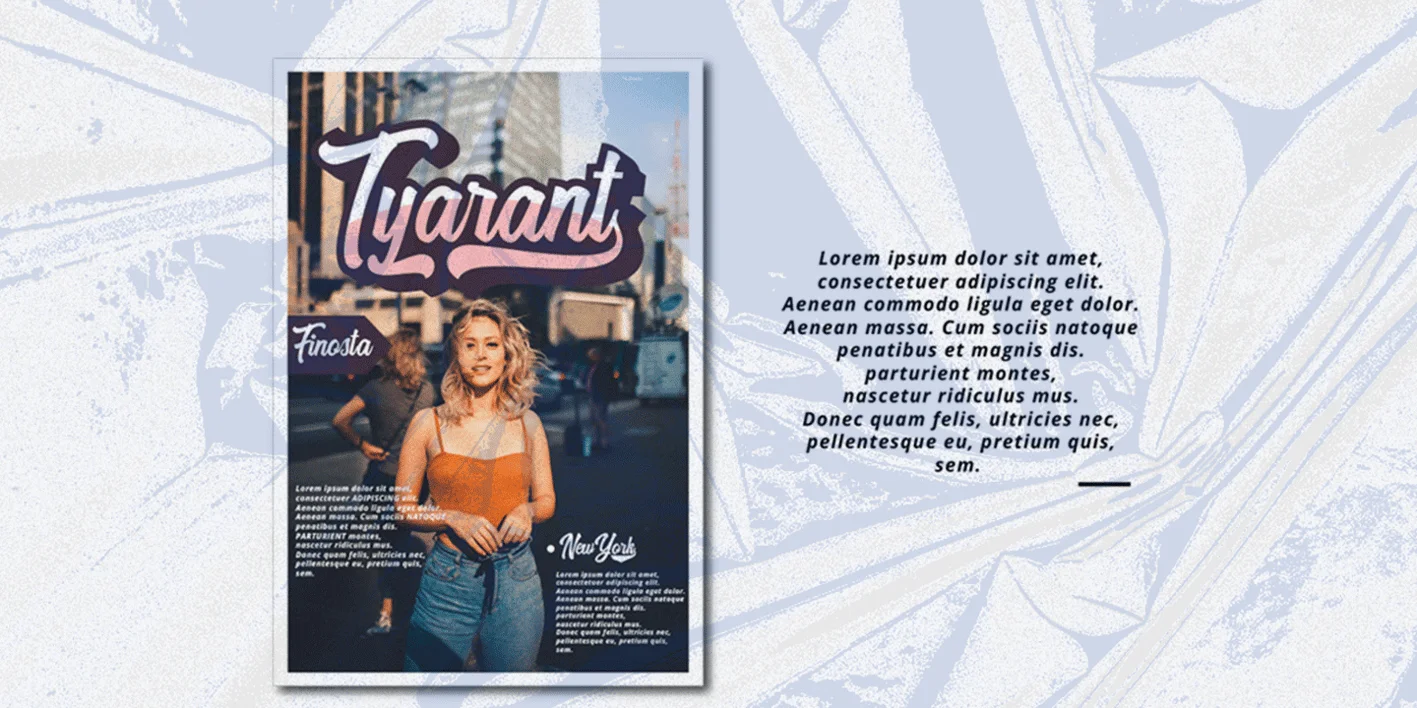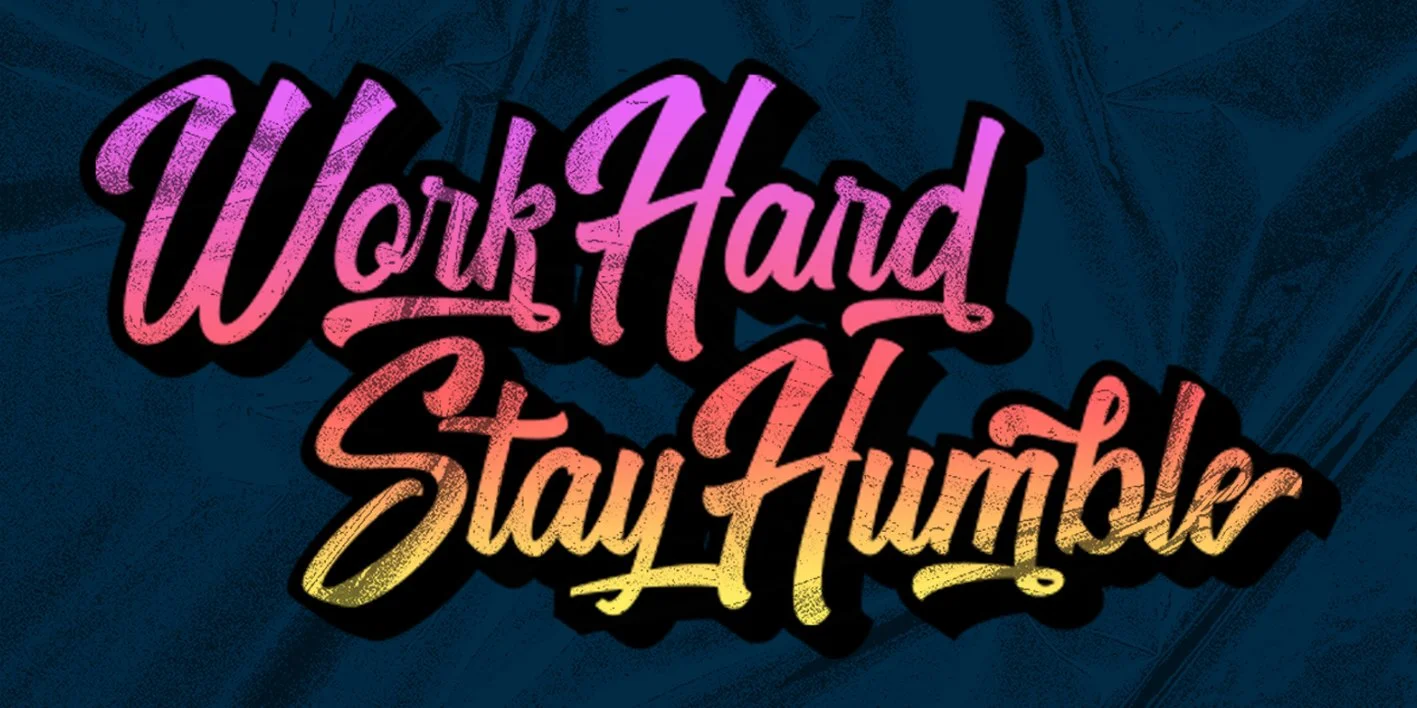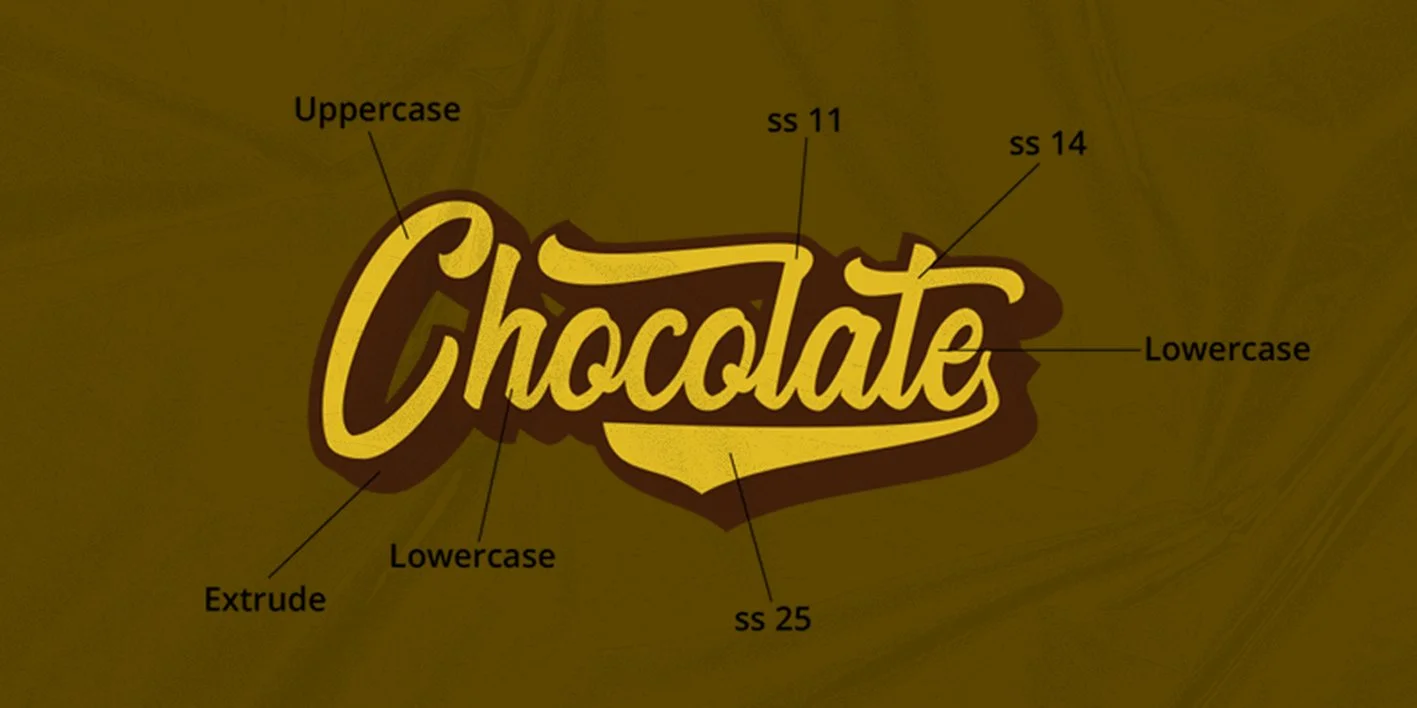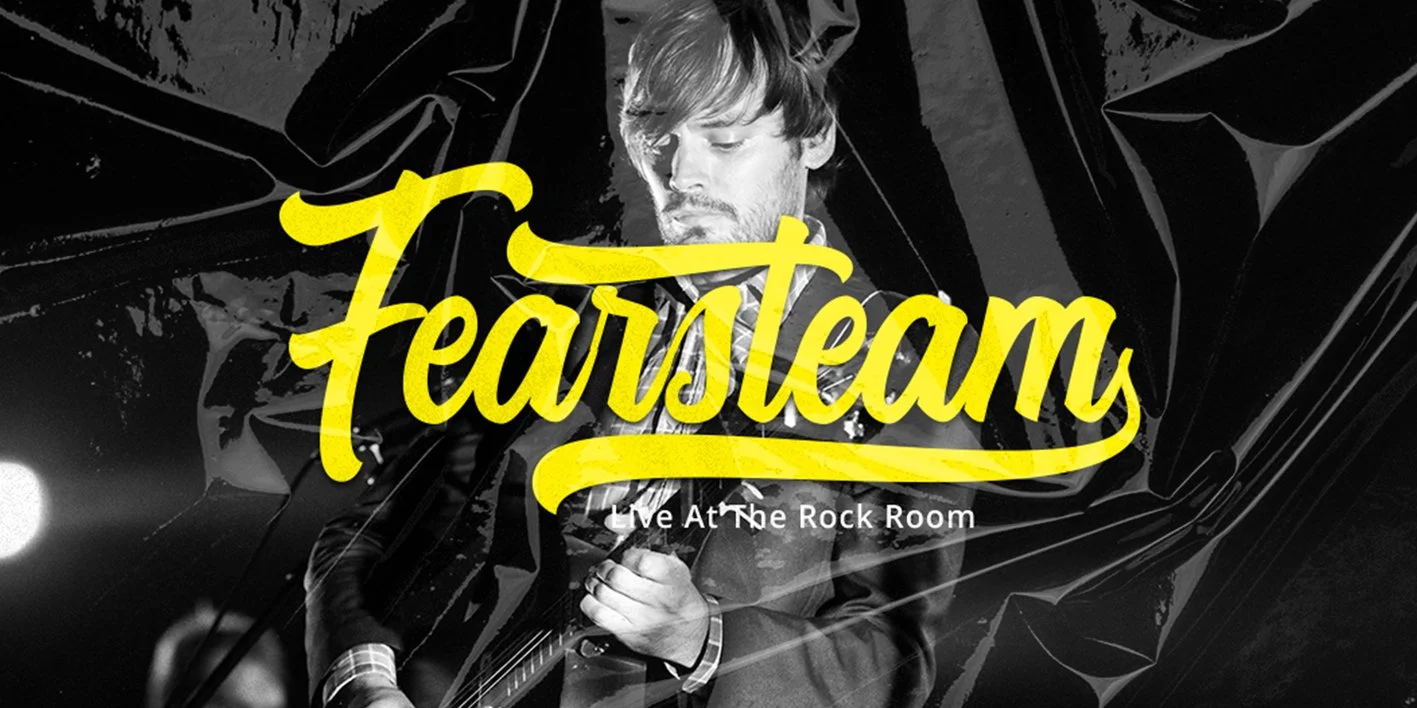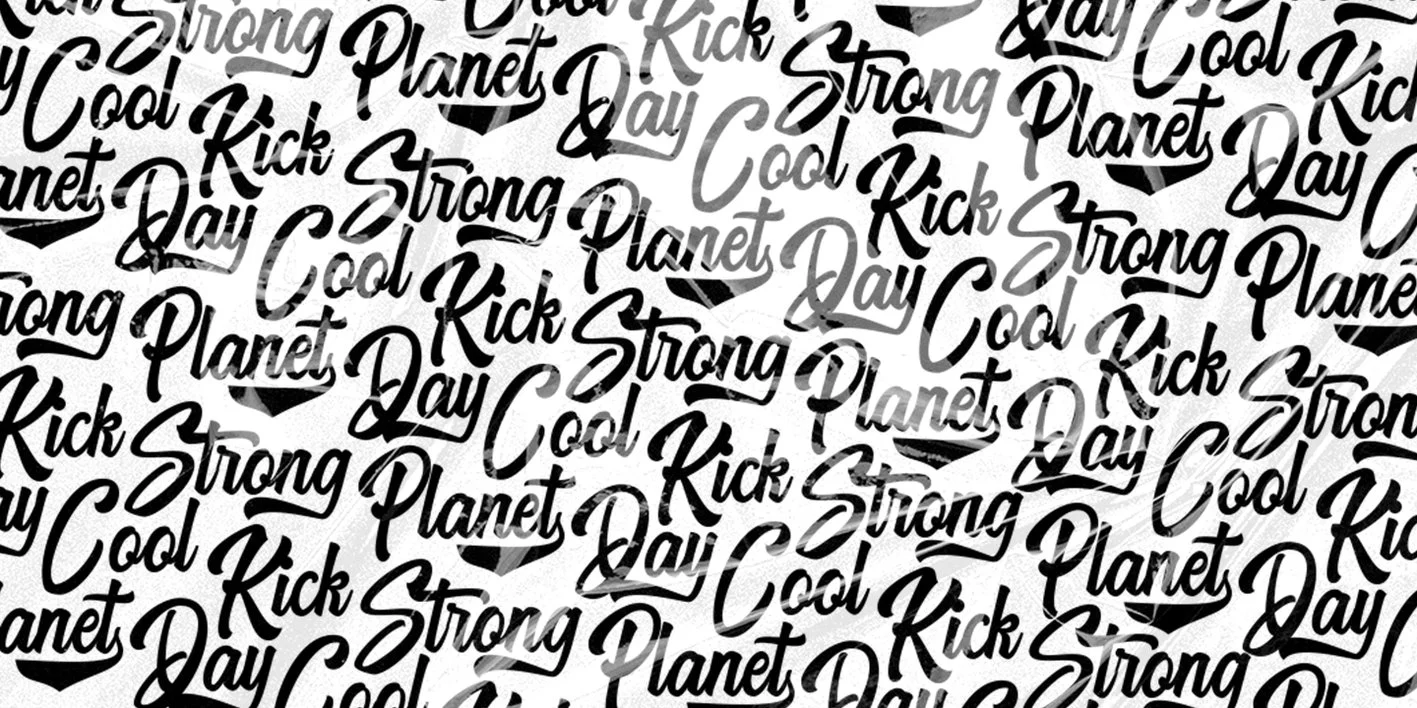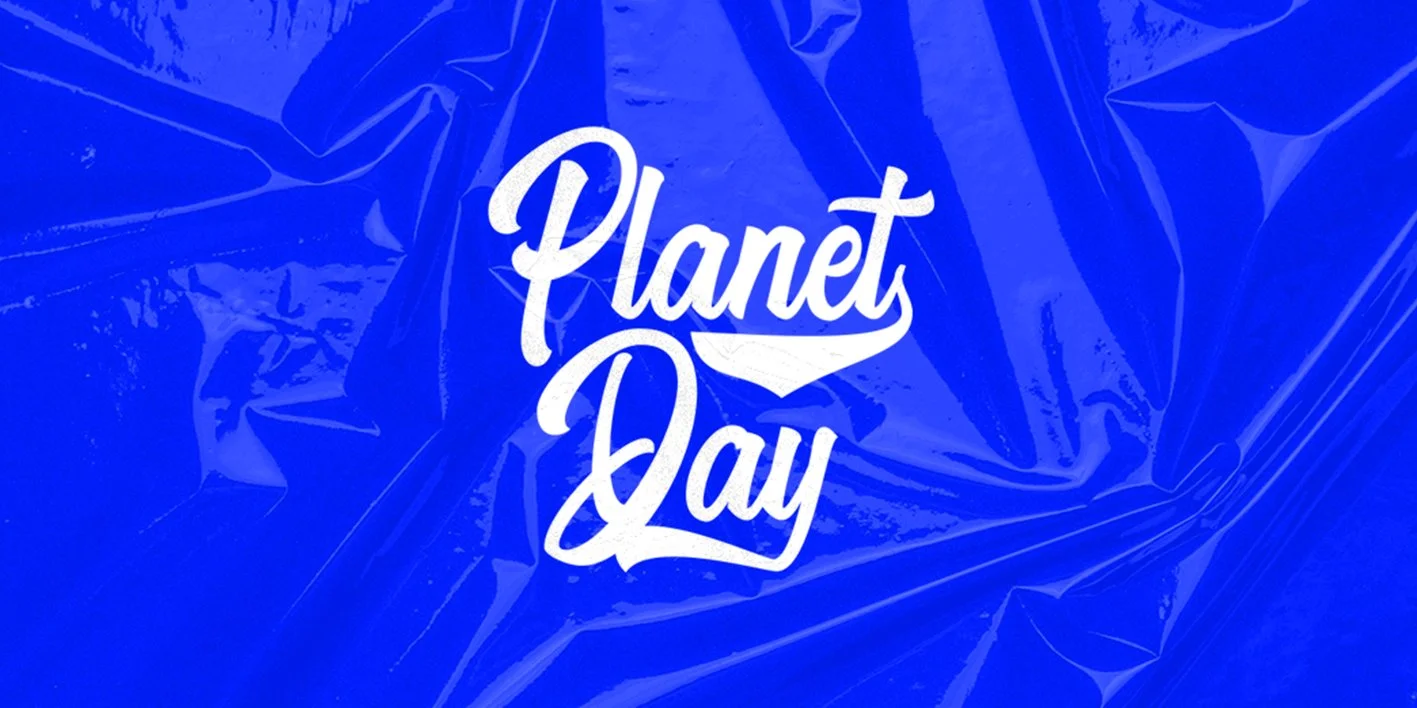
Harpert Script Font
Typography shapes perception at a subconscious level. Harpert Script leverages visual harmony and precise spacing to make every composition feel considered. The typeface brings an elegant, calligraphic sensibility to a broad range of creative disciplines, with strong typographic hierarchy support that holds up whether the work is print-first or screen-first.
In practice, Harpert Script proves particularly effective for perfume labels, logo design, beauty packaging, feminine branding, editorial layouts. Designers reaching for it find that the type decisions feel resolved rather than laboured — a useful quality when client timelines are tight.
The range of applications extends to advertising campaigns, annual reports, poster creation, fashion editorials. That breadth is deliberate: the proportions and spacing were stress-tested across a wide range of mock briefs before the typeface was finalised.
Brand strategists building visual languages find Harpert Script a reliable choice for projects that demand both personality and restraint. The design avoids the self-conscious quirkiness that dates quickly, settling instead for considered distinctiveness that holds up over time.